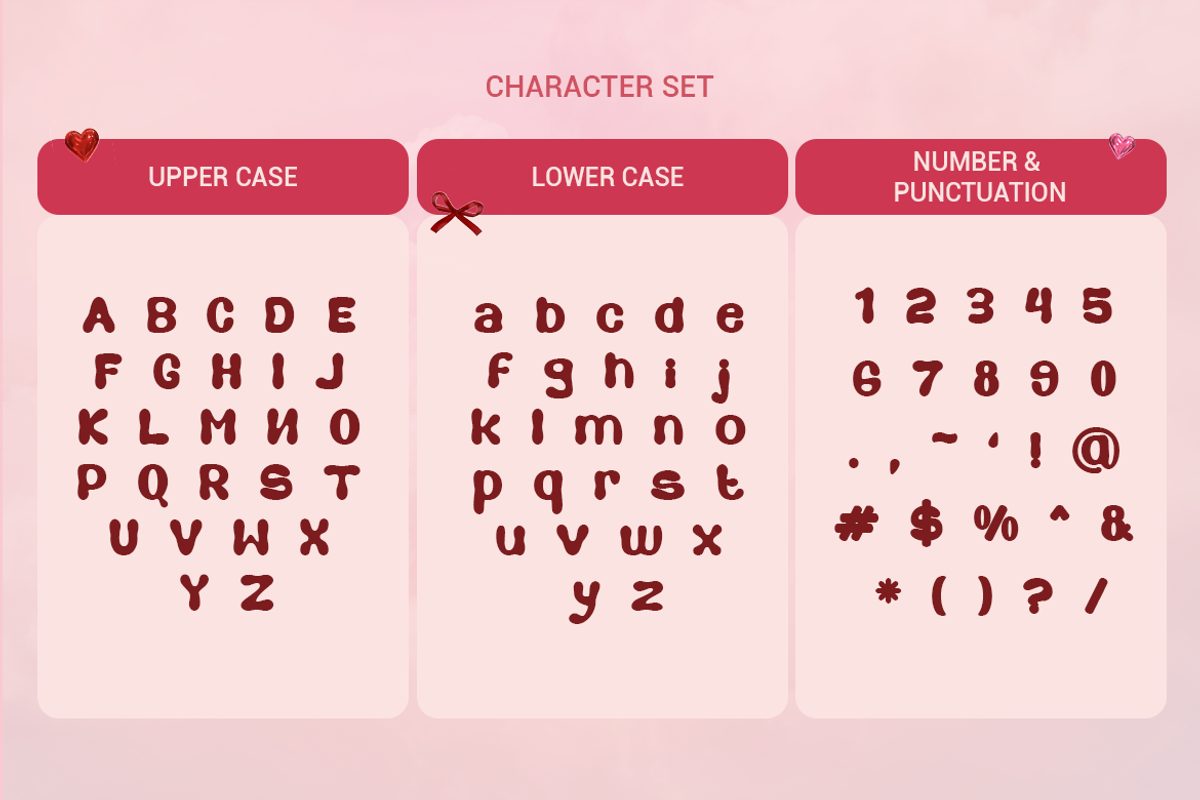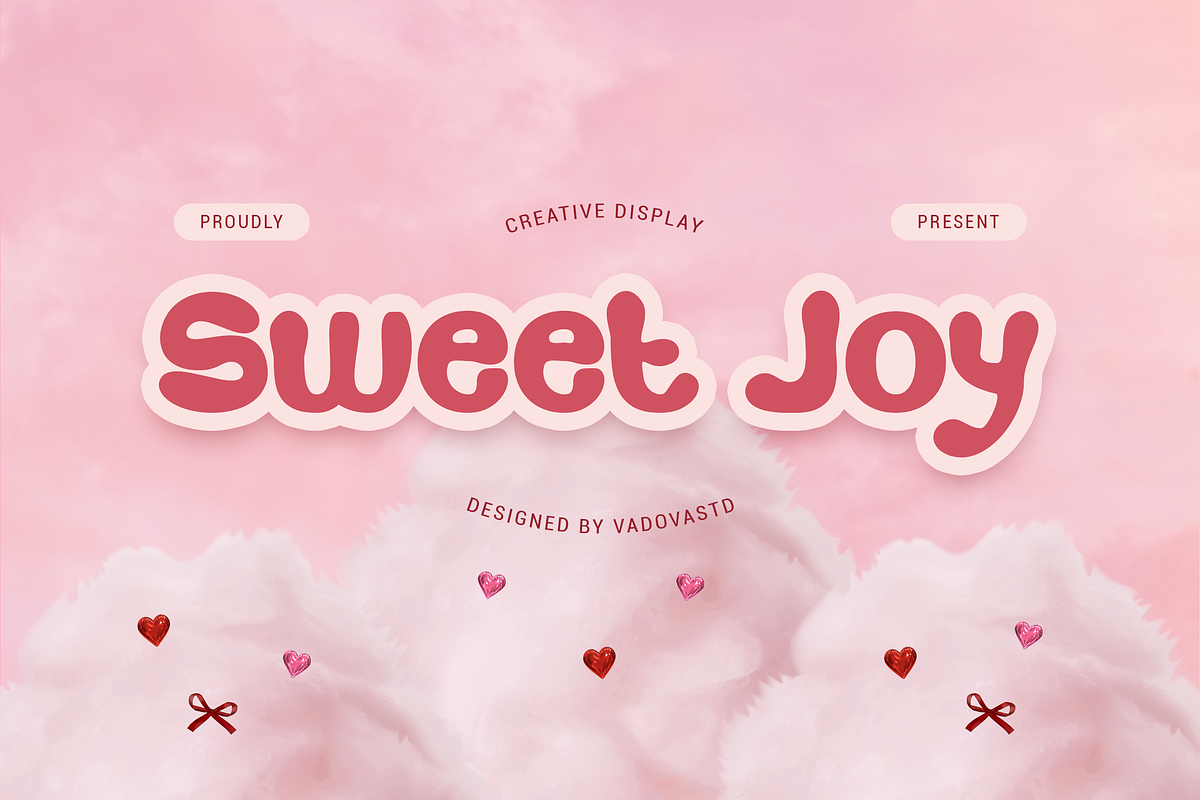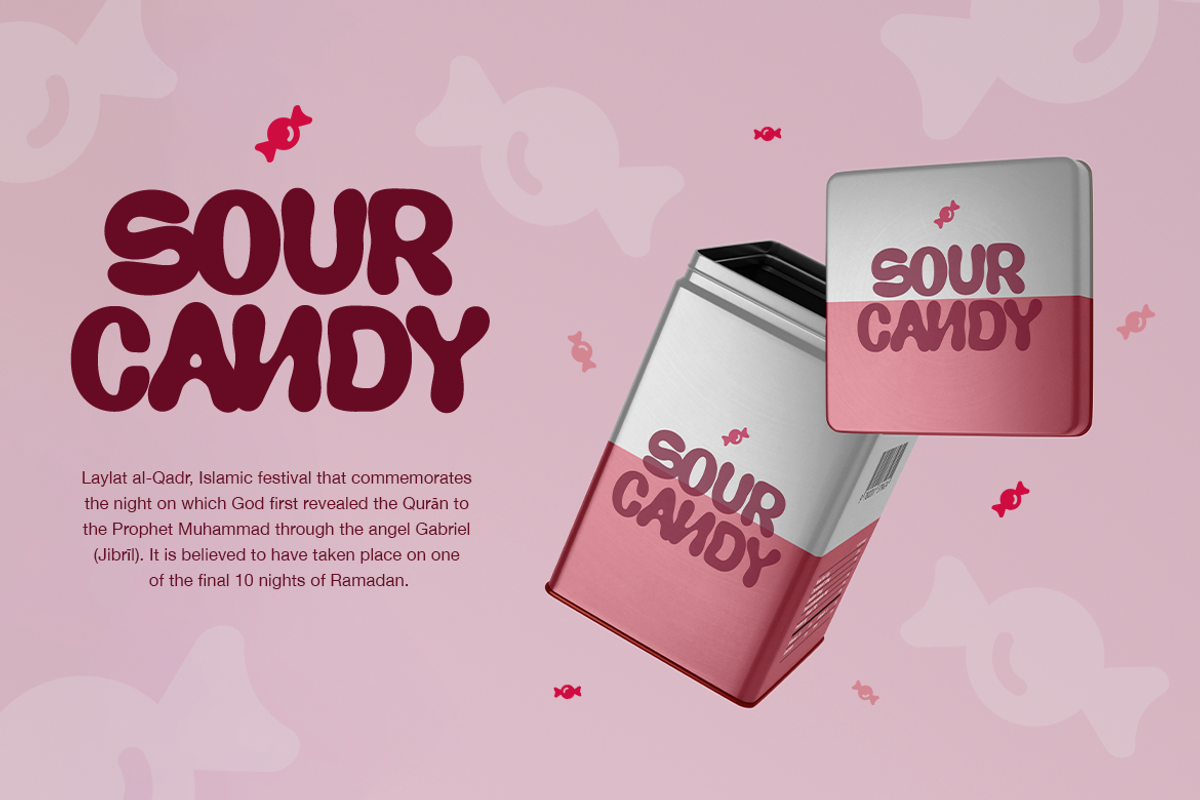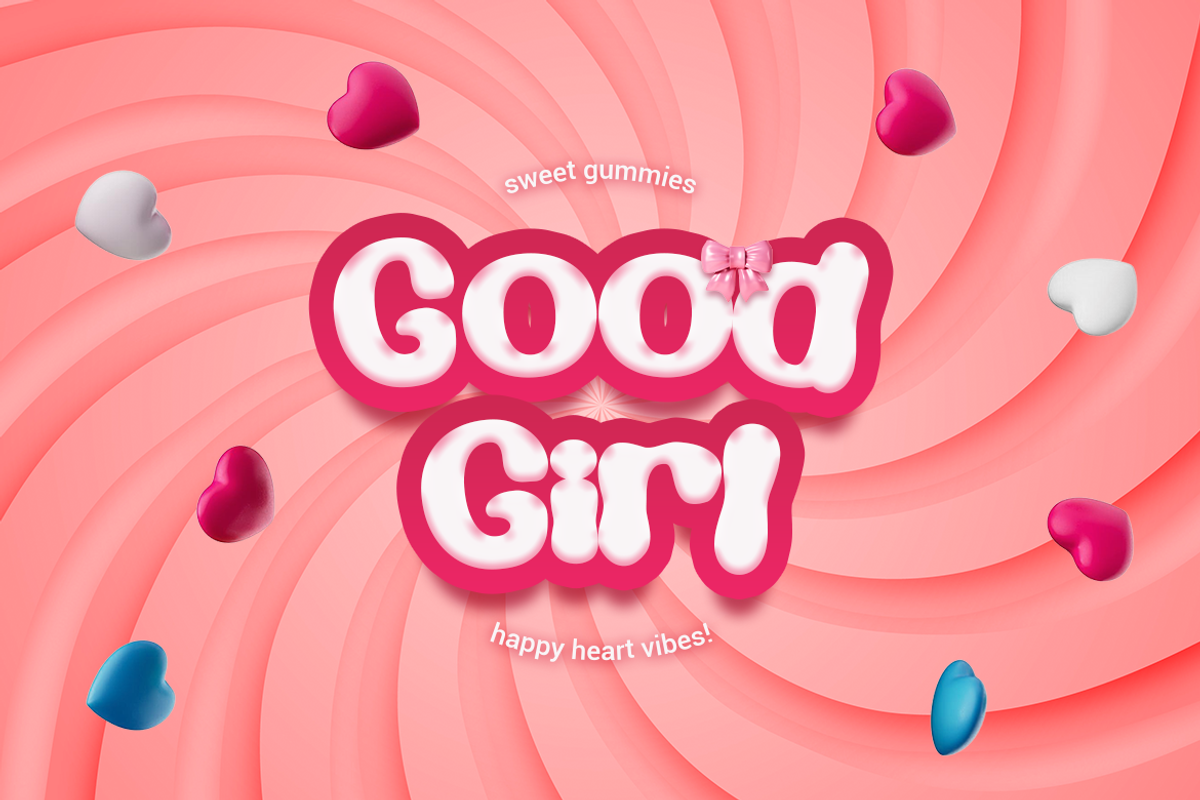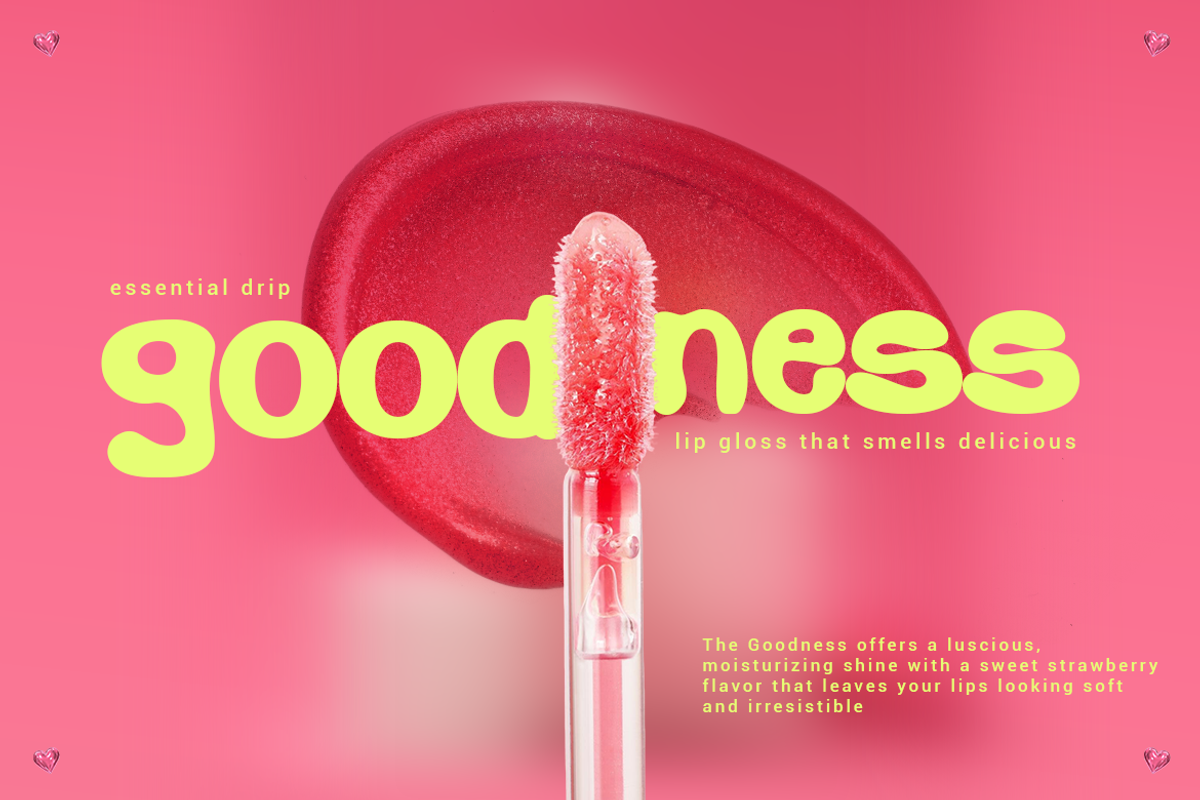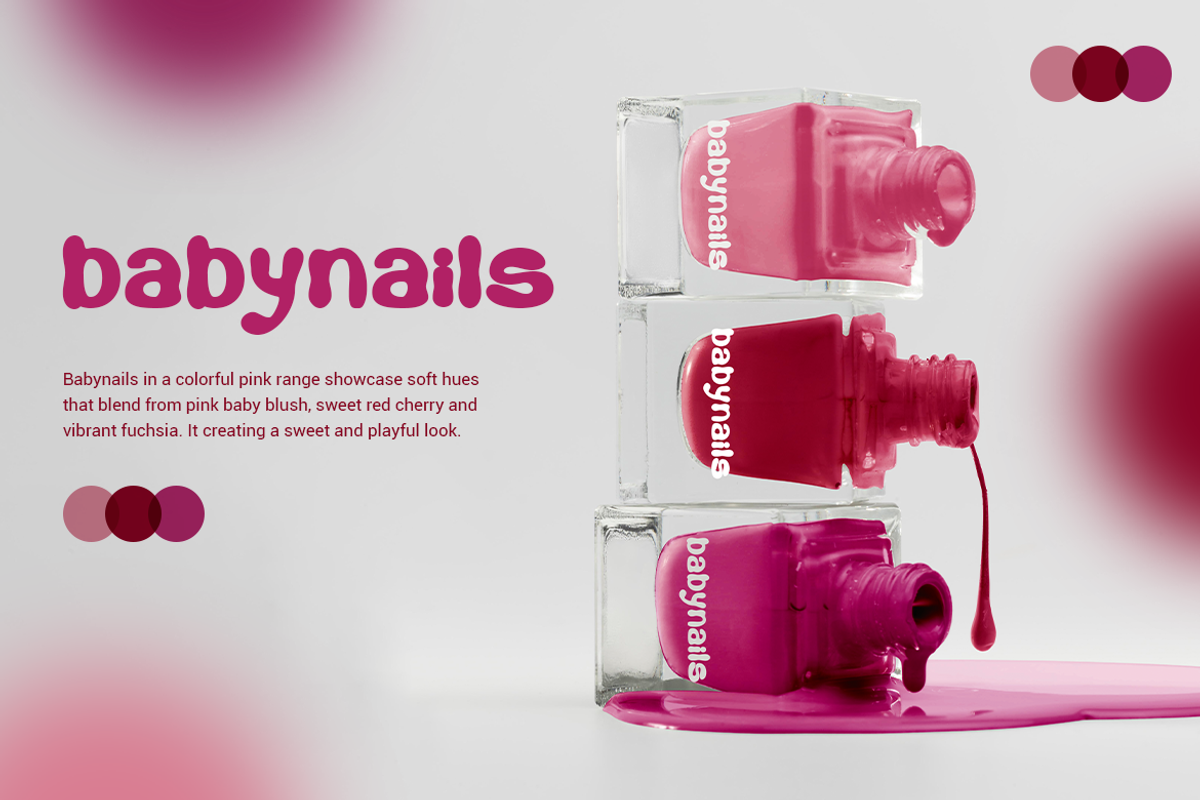
Sweet Joy – Playful Creative Display
Sweet Joy is a playful display font that brings happiness and sweetness to your designs. With its rounded bubble shapes and bold, friendly curves, this typeface radiates fun and positivity. Inspired by candy-like softness, Sweet Joy feels perfect for designs that want to sparkle with joy and celebration.
This font embodies cheerful vibes and holiday spirit—making it ideal not only for playful branding and kids’ projects but also for Christmas cards, festive packaging, and seasonal campaigns. Whether used for posters, logos, or social media, Sweet Joy ensures your message feels warm, joyful, and inviting.
Why Designers Love It:
Bubble-style rounded shapes with a cute personality.
Fun and joyful energy that fits perfectly for kids and festive themes.
Great readability while staying playful and unique.
Brings holiday cheer, especially for Christmas-themed designs.
Uppercase & Lowercase Letters
Alternates & Ligatures for stylistic fun
Best Use Cases:
Kids’ Branding & Toy Packaging
Playful Logos & Creative Posters
Candy & Food Packaging Design
Christmas Cards & Holiday Invitations
Greeting Cards & Seasonal Merch
Social Media Graphics & Lifestyle Products
Celebrate creativity and joy with Sweet Joy, the playful font that spreads happiness and festive warmth. Perfect for Christmas and beyond, Sweet Joy turns every design into a cheerful delight.